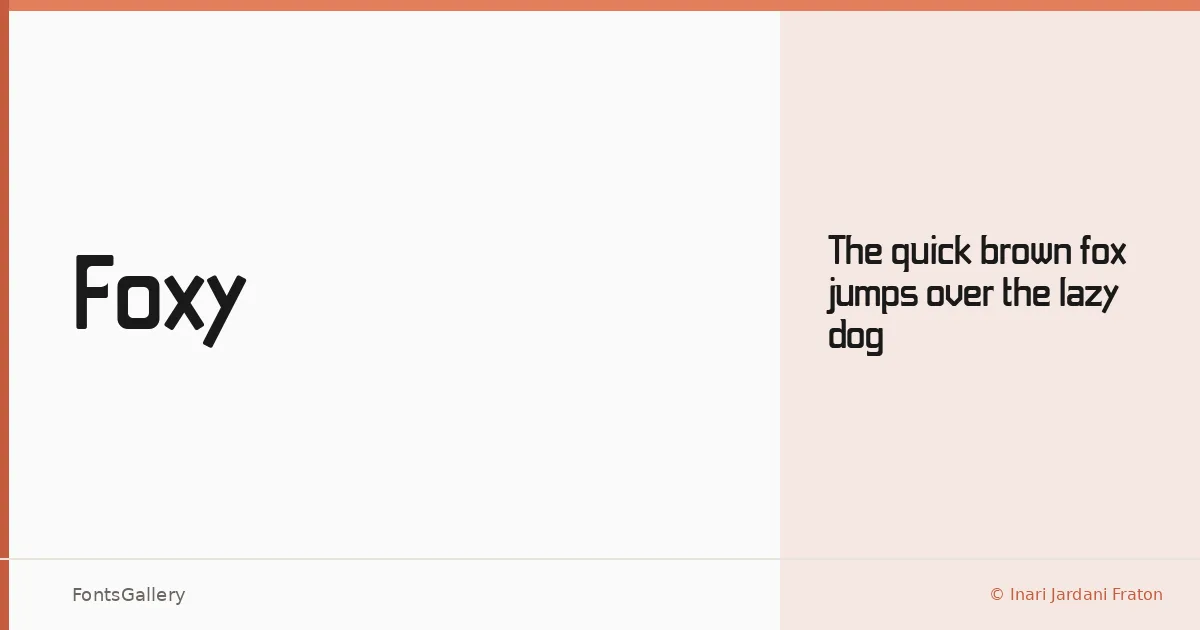
About Foxy Font
There is a deliberate confidence in the way this sans serif holds itself — clean strokes, minimal ornamentation, and a silhouette that reads instantly at large sizes. It is the work of designer Inari Jardani Fraton, offered as a single Regular weight in TTF format.
Foxy sits firmly in the modern, minimal end of the sans serif spectrum — bold in presence without being loud, and professional enough to carry serious work. The single cut keeps the system focused: every decision in the letterforms is built around impact rather than range, which makes the typeface feel resolved rather than limited. At display sizes, the geometry holds up cleanly with no distracting quirks.
This face earns its keep in branding systems, headline treatments, poster work, and logo lockups where a strong, unfussy sans needs to do the heavy lifting. Coverage extends to Latin scripts (partial), so it handles standard Western European copy well. It pairs naturally with Canela and ABC Arizona for editorial contrast, with Armelie or Kactigona when a more expressive secondary voice is needed, and with 321 Impact when the entire system wants to stay in aggressive display territory.